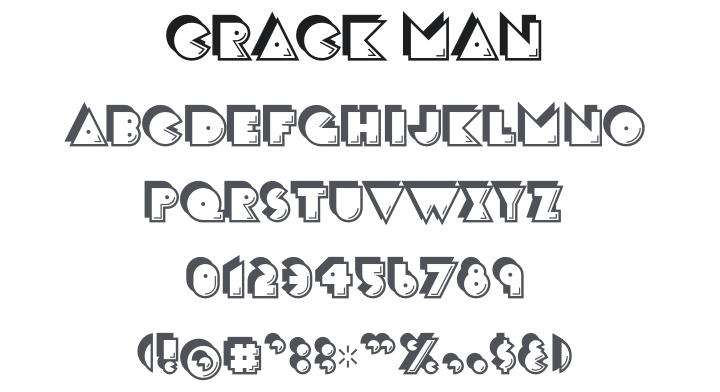
Crack Man Font Family
About Crack Man
Crack Man is a bold, Art Deco-inspired counterless display typeface with a distinct early-1980s video game personality — geometric letterforms with all inner counter spaces filled solid, giving each character a dense, chunky presence that bridges vintage deco glamour with arcade-era nostalgia. Three layerable files allow colourful chromatic effects. Perfect for retro game titles, Art Deco-themed designs, arcade branding, poster headlines, and any design needing bold, filled-in geometric confidence.